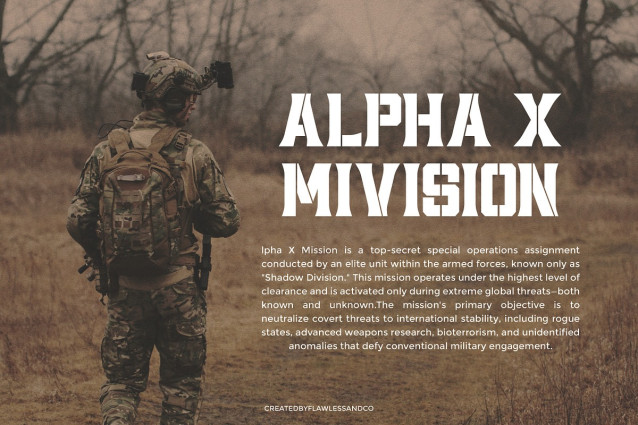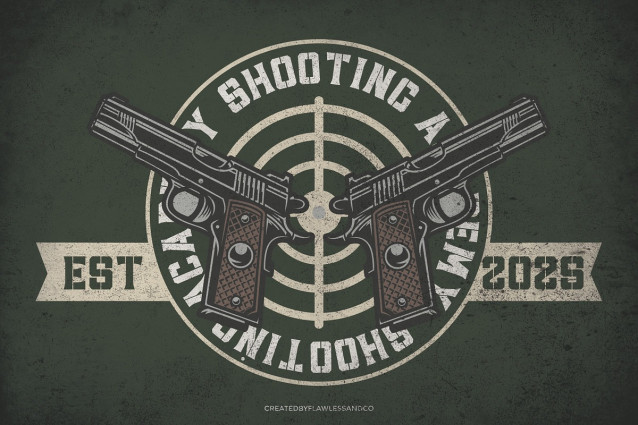
Gunsman Stencil Font
Gunsman Stencil Font is a bold military and stencil-style font, designed for strength, precision, and authority. With its sharp cuts and rugged edges, it embodies the toughness of tactical and industrial aesthetics. Equipped with multiple character alternatives, this font is perfect for action-themed projects, combat-inspired branding, army posters, tactical gear packaging, survival guides, or any design that demands a strong military presence. Whether you’re working on war-themed visuals, extreme sports branding, or gritty urban designs, Gunsman delivers power and impact in every letter.